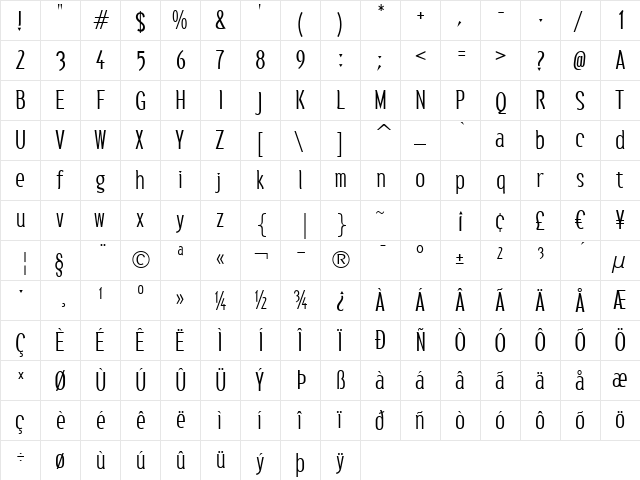
Susanna Regular Font Preview
Susanna Regular
Susanna Regular Font Details
Design Context for Susanna Typeface
Susanna takes a measured approach to typography — its balanced proportions and neutral character make it a reliable workhorse for both digital and print work.